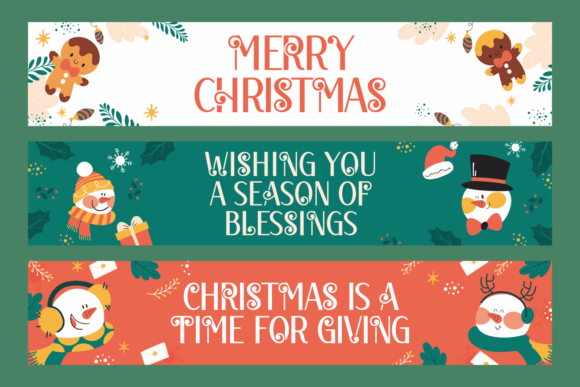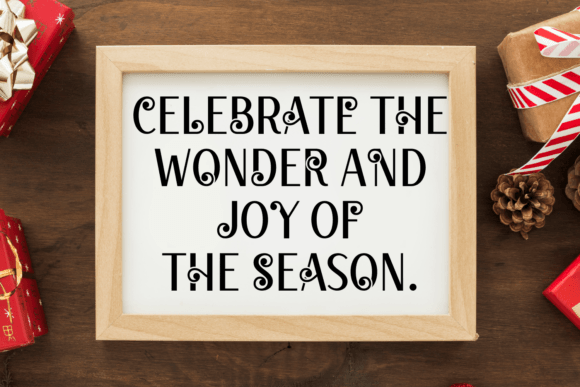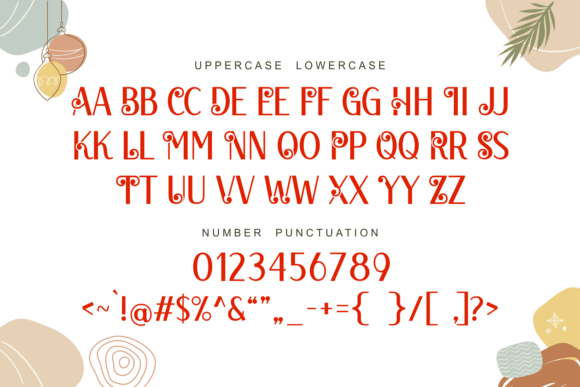
Christmas Whimsy Font
Christmas Whimsy is a playful, curly font perfect for the holiday season. It has a lighthearted, festive feel, with swirly letters that add warmth and cheer to any Christmas-themed project. Ideal for cards, decorations, and festive signs!